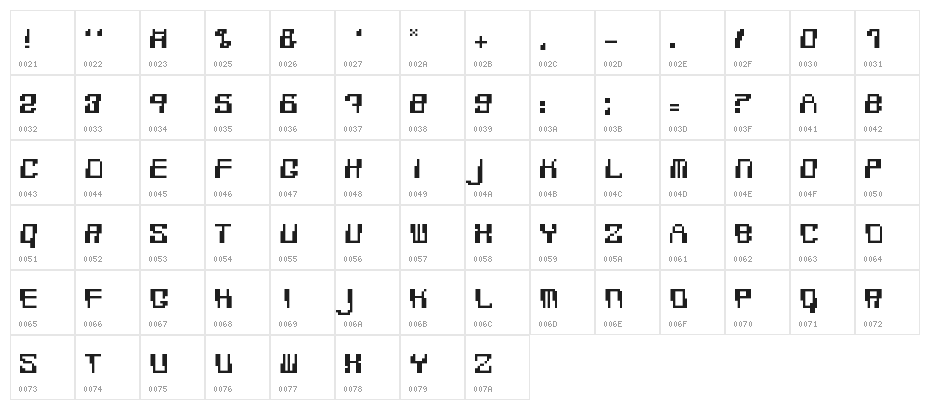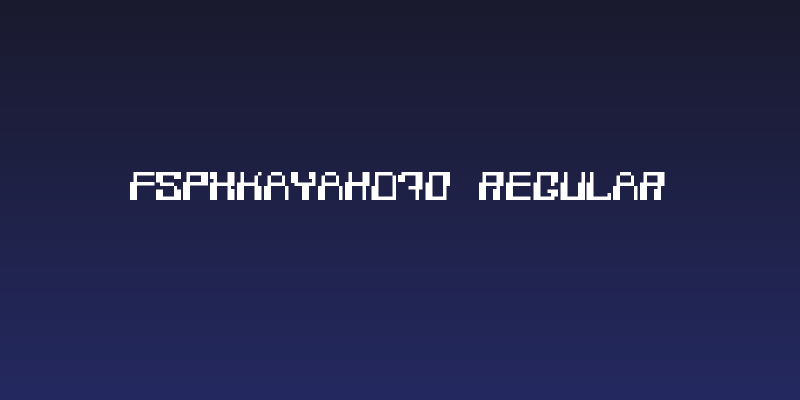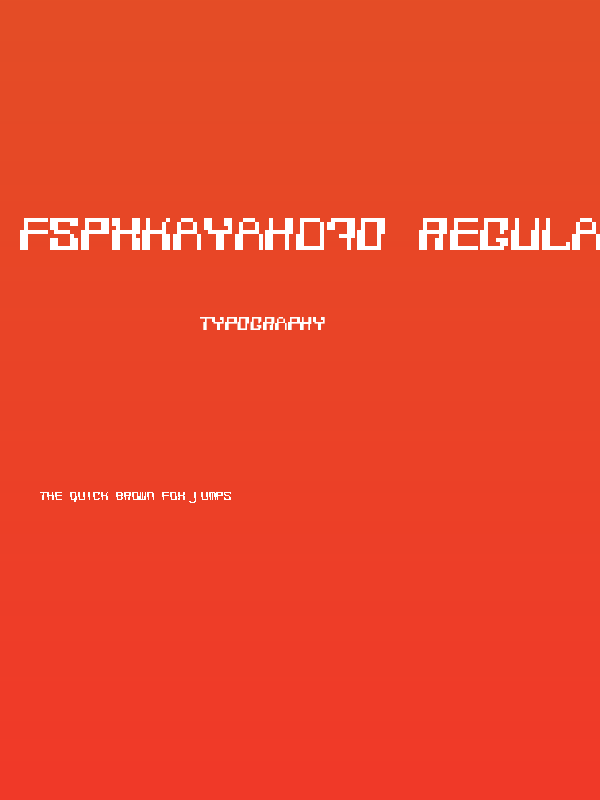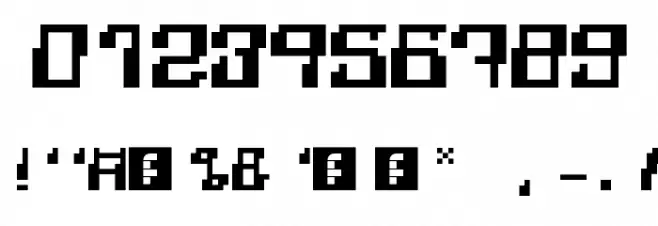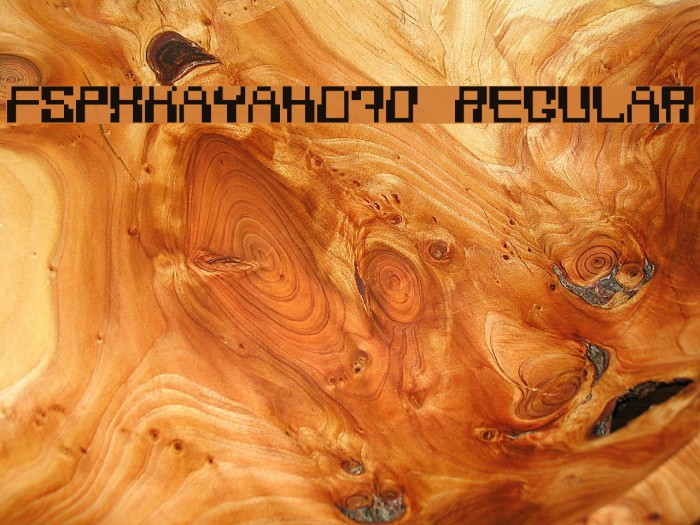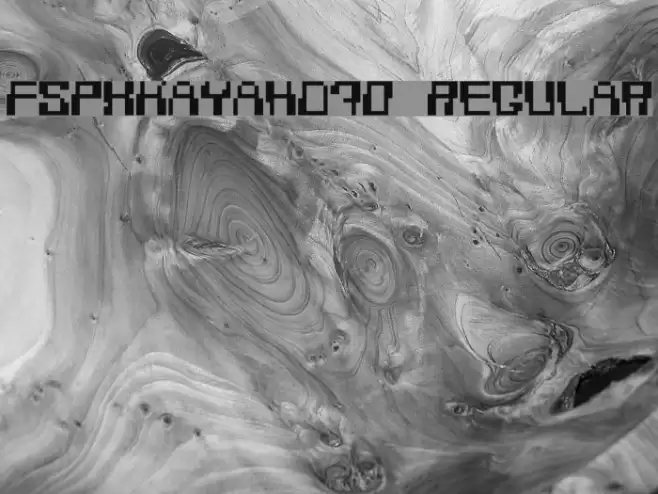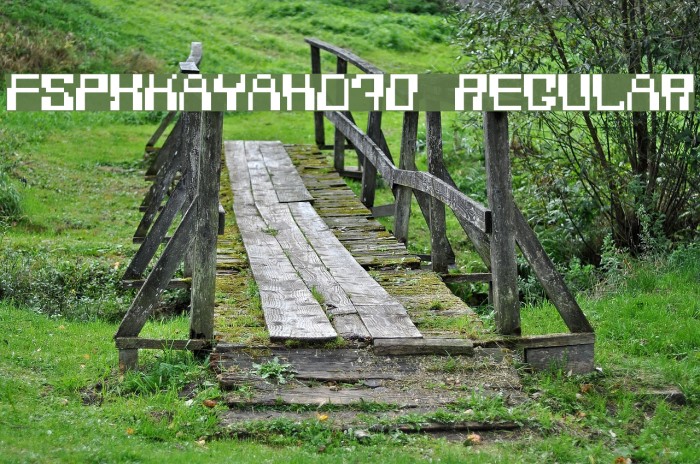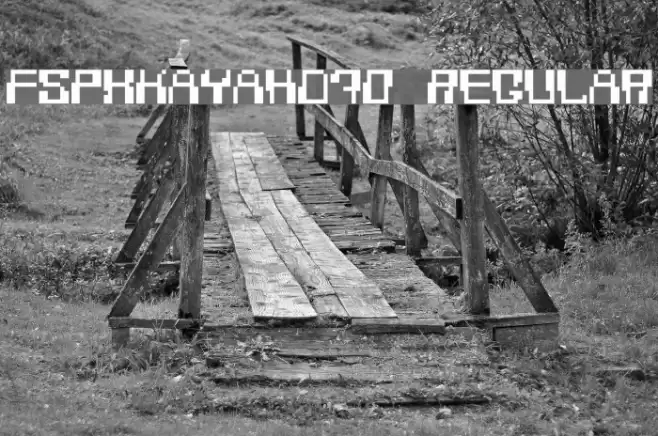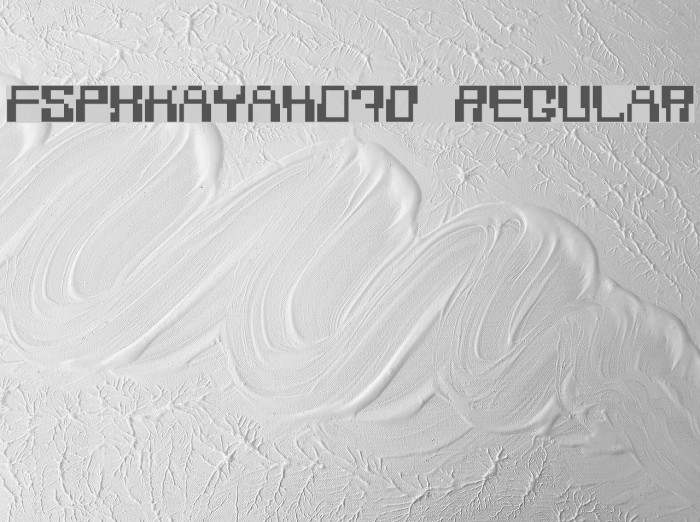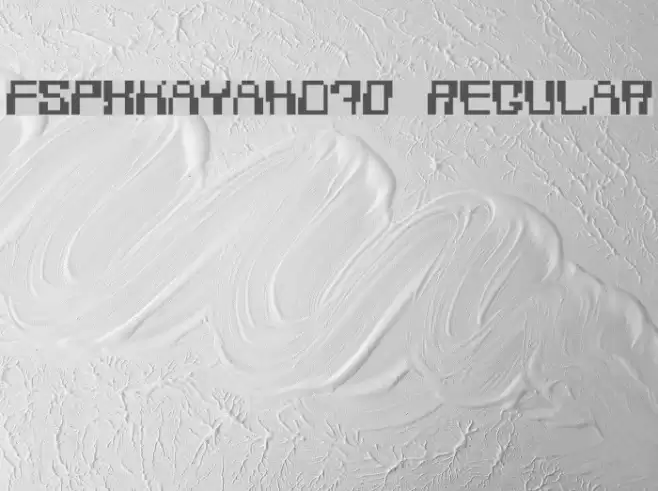
FSPxKayahD70 Regular Font
FSPxKayahD70 Regular Description
This font features a bold, pixelated style reminiscent of retro digital displays and early computer graphics. Each character is constructed with a blocky, grid-like appearance, emphasizing a strong geometric form. The uppercase and lowercase letters maintain a consistent height, contributing to a uniform look. Numbers and special characters follow the same pixelated design, ensuring a cohesive visual theme. The font's unique style makes it stand out, offering a nostalgic yet modern twist suitable for digital-themed projects.
| Overall Style | Retro, Digital |
| Use Case | Headlines, Logos, Digital Art |
| Proposed Projects | Ideal for video game design, digital art projects, retro-themed posters, and tech-related branding. |